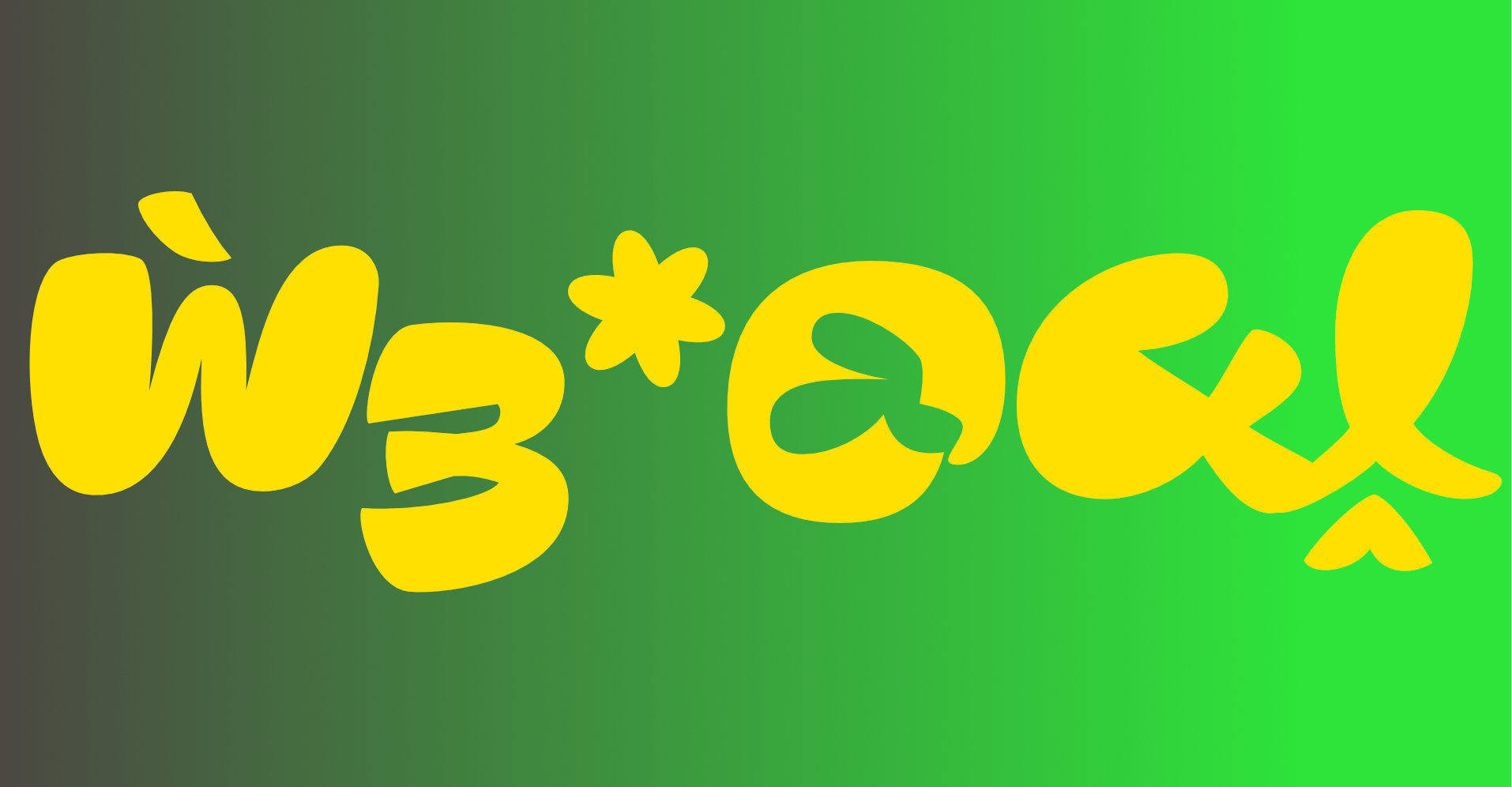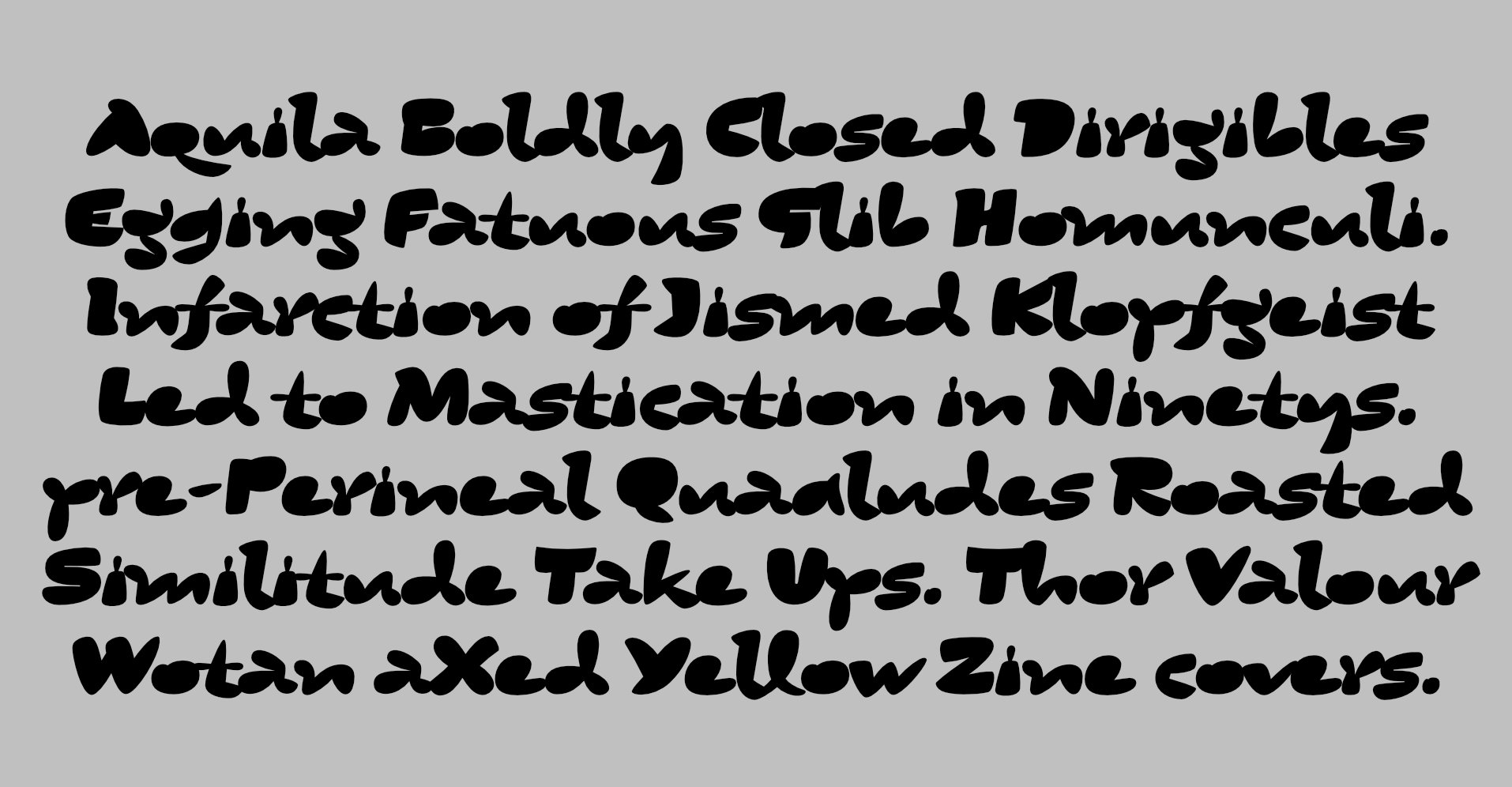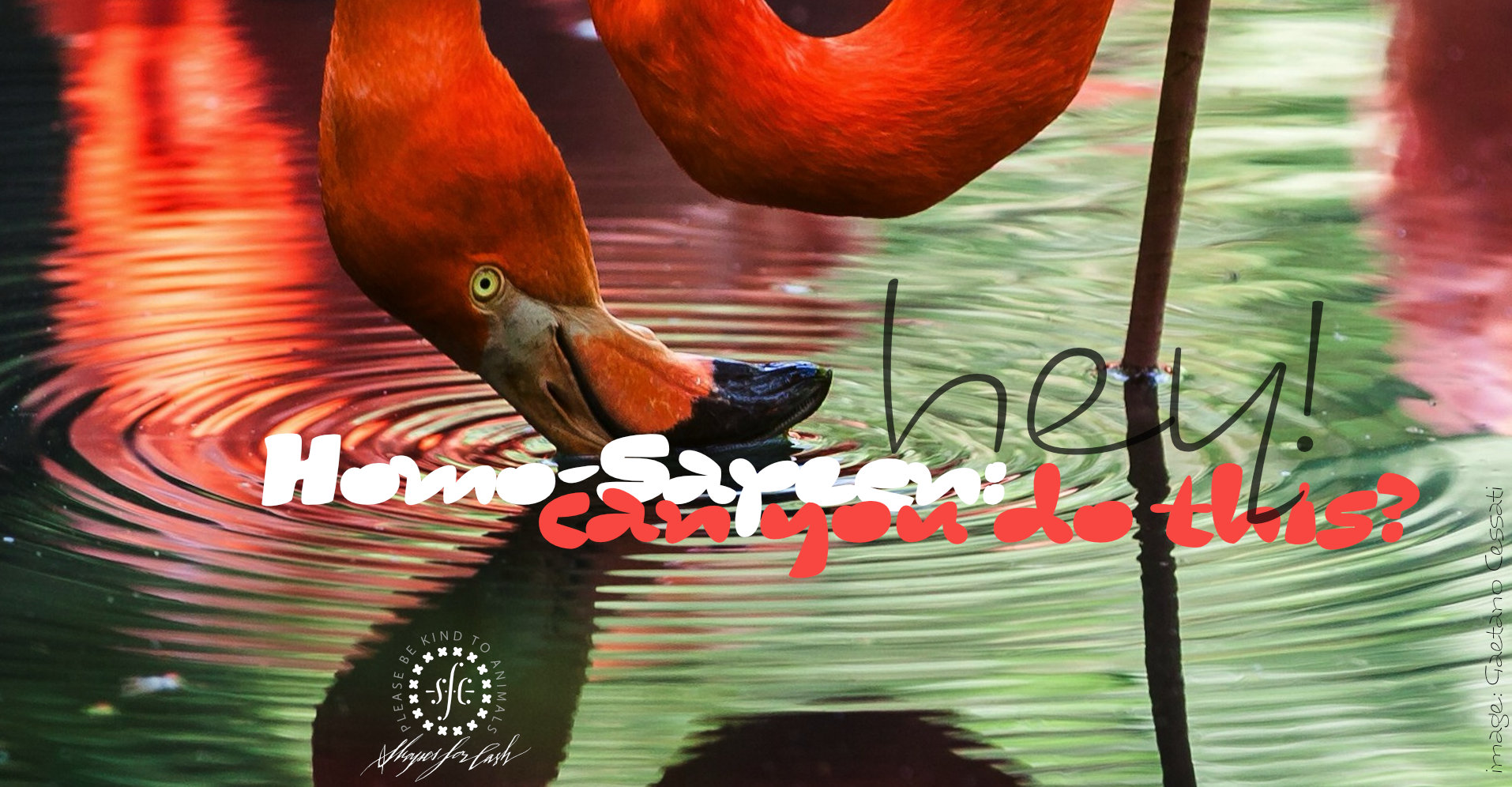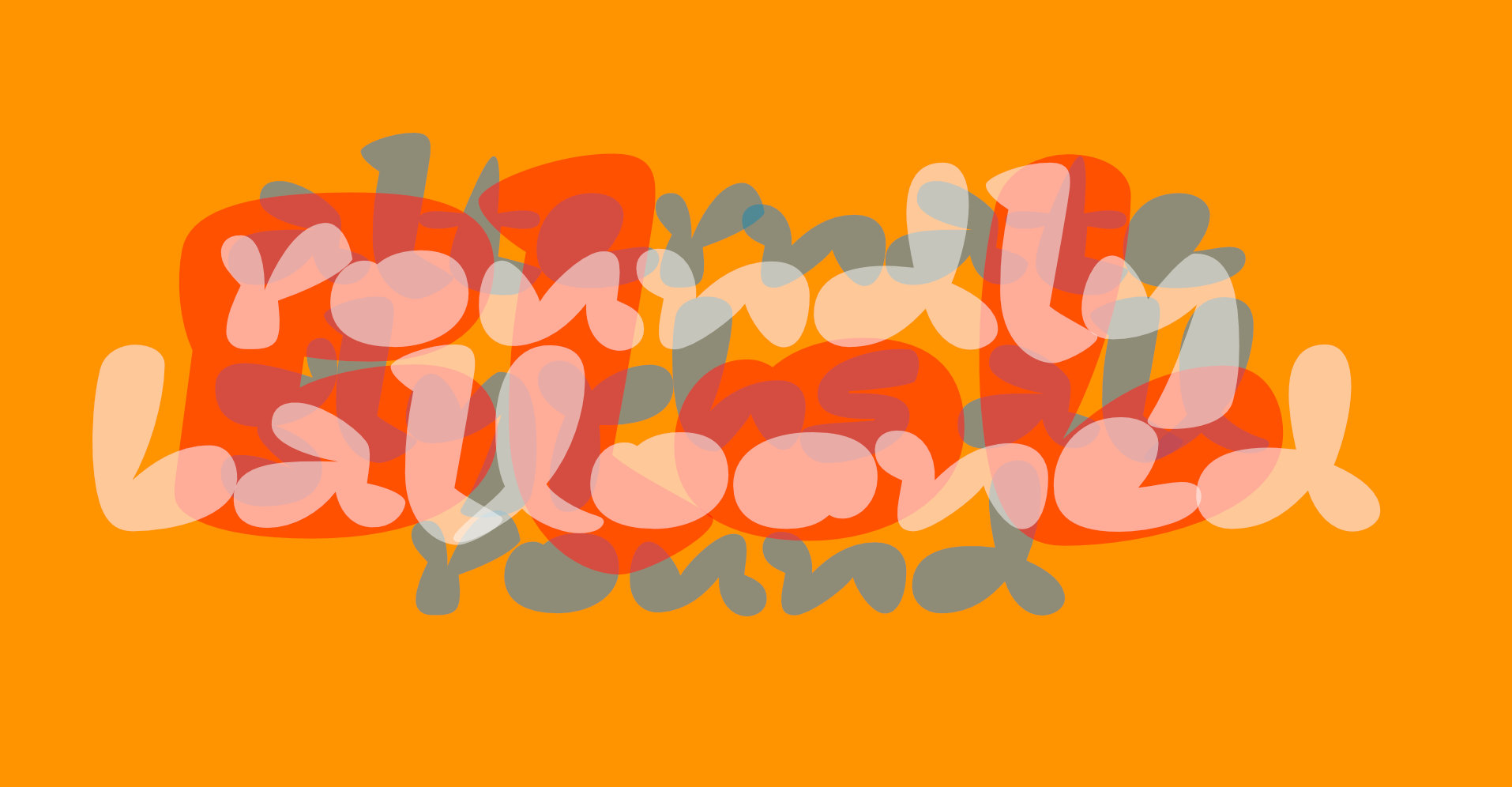
EnjoyFun
If you are a committed modernist, there is probably no need for you to read any further ¶ These letters are an exercise in extremes, historical reference and joyful drawing activity. The initial offering of this EnjoyFun family comprises two quite different, yet related sets of letters: Squodge and Bone. Squodge takes its name from the descriptive text for Hipsterpotamus, but has no wish to steal its bloated thunder. Squodge is a far curvier affair than that fellow: a weighty, slightly italicised counterless collection of rascals, with elements of balloon animals; dough; juicy fruits; slices of yummy pie, whipped cream and er... other things ¶ Bone is the skeleton of Squodge, a slender design that follows many of the mannerisms inherent in its weighty sibling, and has more chance to display its historical influence. Overlayment. as shown in some of the images above, demonstrates that they share many characteristics ¶ The fonts also contain a second set of lettershapes for all capitals and lowercase, special code within these automatically ensures that double letters are not visually repeated, and of course, the whole palette of letters are available to you for your own word compositions ¶ Further releases within the EnjoyFun family will show that this overlaying business is built in to these designs. As the images tantalise, there are some additional designs to come that will create a playset of shapes for layering, mixing and colouring-in your words ¶ Subscribe to the newsletter using the link above to be kept informed of these new releases.